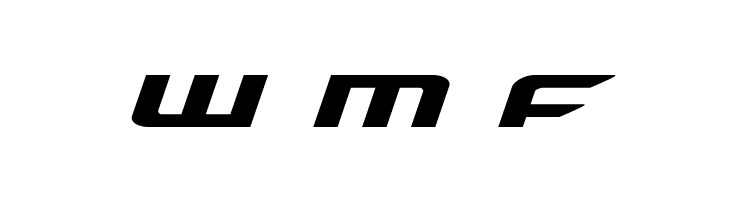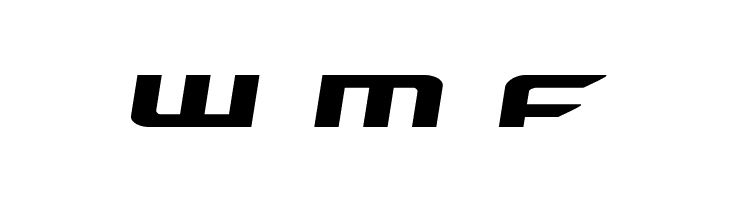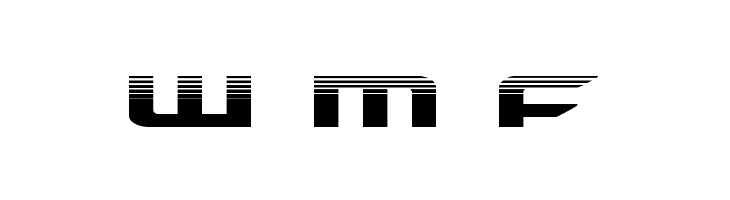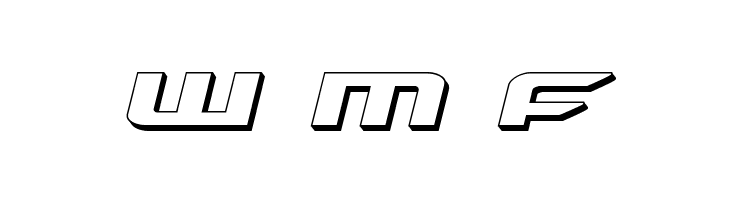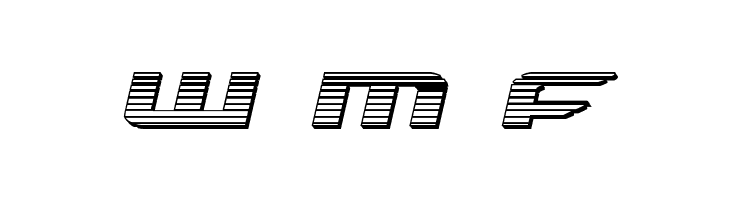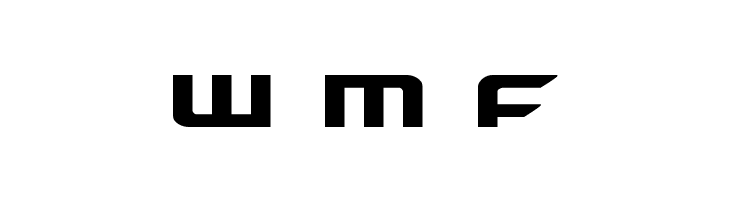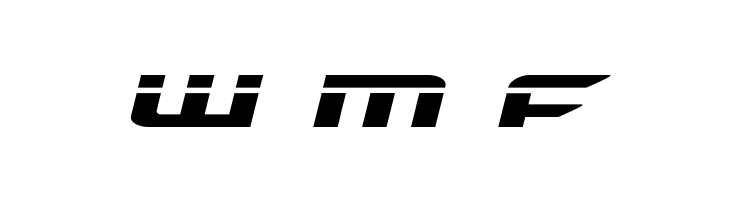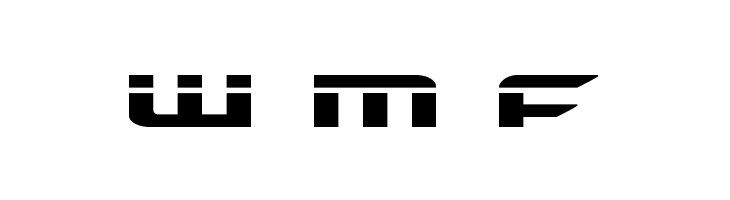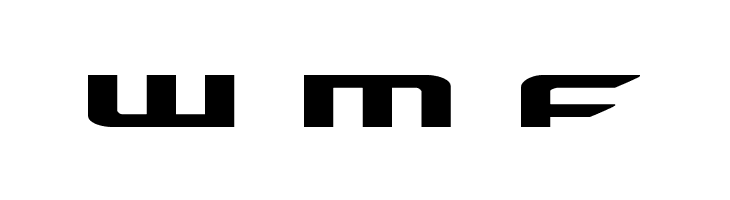
• Dreamwood DEMO Regular
• Dressed Book Regular
A bold, rounded font with a playful and modern aesthetic.
• Dressed Filled Regular
A bold, rounded font with a playful, outlined style.
• Dressed Gradient Regular
A bold, decorative font with a gradient effect and thick outlines.
• Dressed Regular
A bold, playful font with rounded edges and a thick outline, perfect for fun and engaging designs.
• Driana
A lively and elegant handwritten font with fluid cursive letterforms.
• Drips Splatters Regular
• Drive
A futuristic, geometric font with bold, angular letterforms.
• Drive 3D
A futuristic, geometric font with a three-dimensional effect.
• Drive 3D Italic
A futuristic, italicized font with a 3D effect and bold outlines.
• Drive Bold
A bold, futuristic font with sharp angles and geometric design.
• Drive Bold Italic
A bold, italicized font with a futuristic and dynamic design.
• Drive Chrome
A futuristic, geometric font with bold, angular shapes and three-dimensional effects.
• Drive Chrome Italic
A futuristic, italic font with parallel line detailing and a dynamic, modern style.
• Drive Condensed
A futuristic, angular font with sharp edges and a geometric style.
• Drive Condensed Italic
A sleek, condensed italic font with a futuristic and angular design.
• Drive Expanded
A futuristic, geometric font with sharp angles and bold styling.
• Drive Expanded Italic
A bold, italicized, and expanded font with a futuristic and dynamic style.
• Drive Halftone
A bold, futuristic font with a dynamic halftone effect and angular design.
• Drive Halftone Italic
A dynamic, futuristic italic font with a halftone effect and sharp, angular design.
• Drive Italic
A dynamic, italicized font with sharp, angular letterforms for a futuristic look.
• Drive Laser